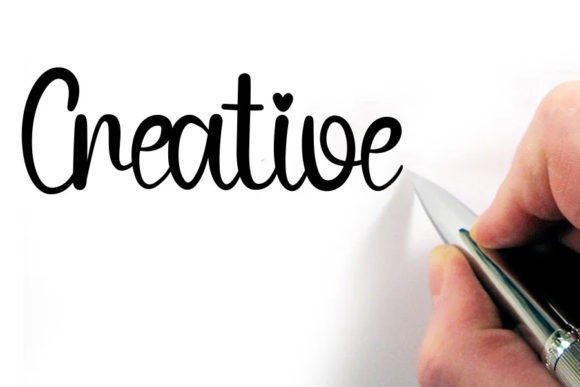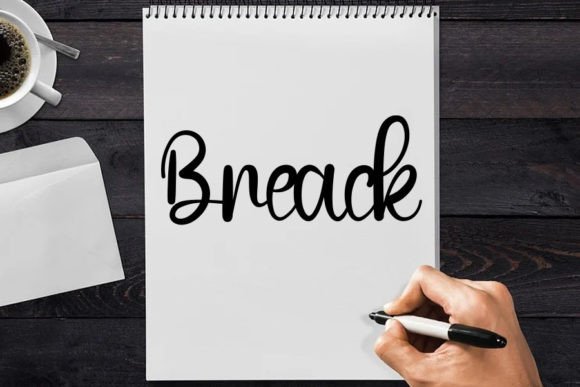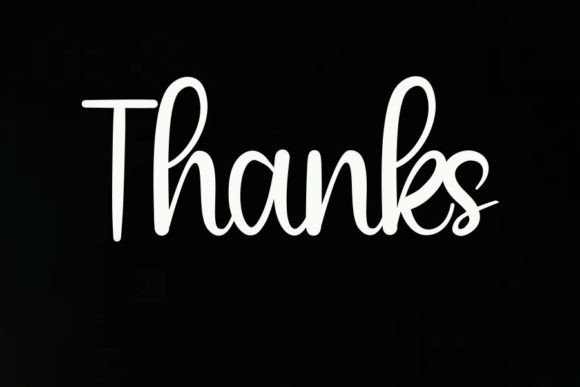
Introducing Signature, a lovely and sweet handwritten script font designed to bring a touch of elegance to a variety of design ideas. This gentle and graceful font is crafted to look gorgeous on a range of creative projects, adding a joyful and romantic touch to each one.
The flowing and delicate strokes of Signature create a beautiful and harmonious script, making it suitable for a wide array of applications. Whether you’re working on wedding invitations, greeting cards, logos, branding, or any project that requires a romantic and charming font, Signature is the perfect choice.
Imagine the romantic ambiance that Signature brings to your designs, creating an atmosphere of joy and sophistication. Picture it gracing wedding invitations, where its sweet and handwritten script adds a personal and heartfelt touch.
Signature is more than just a font; it’s a tool that enhances the beauty and elegance of your projects. Add it to your creative endeavors, and let it become the signature element that elevates your designs to new heights. With Signature, each project is infused with a lovely and sweet charm that captivates and delights.